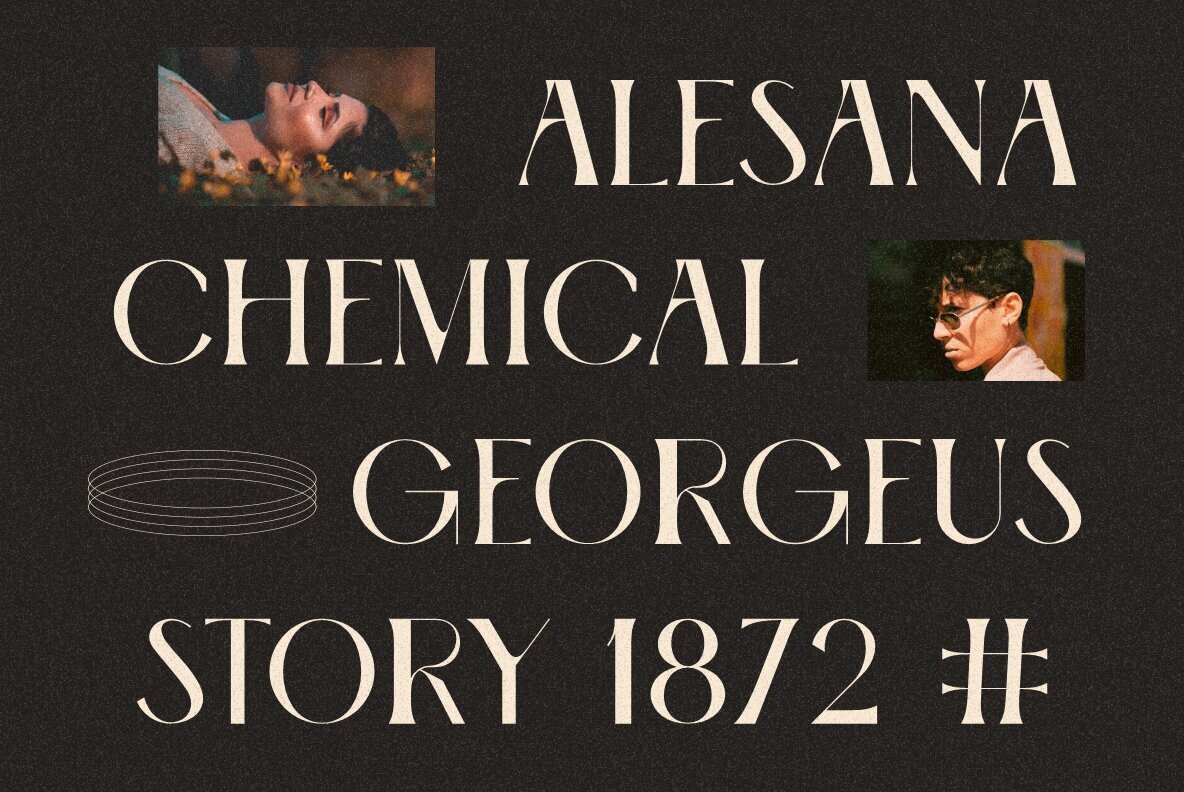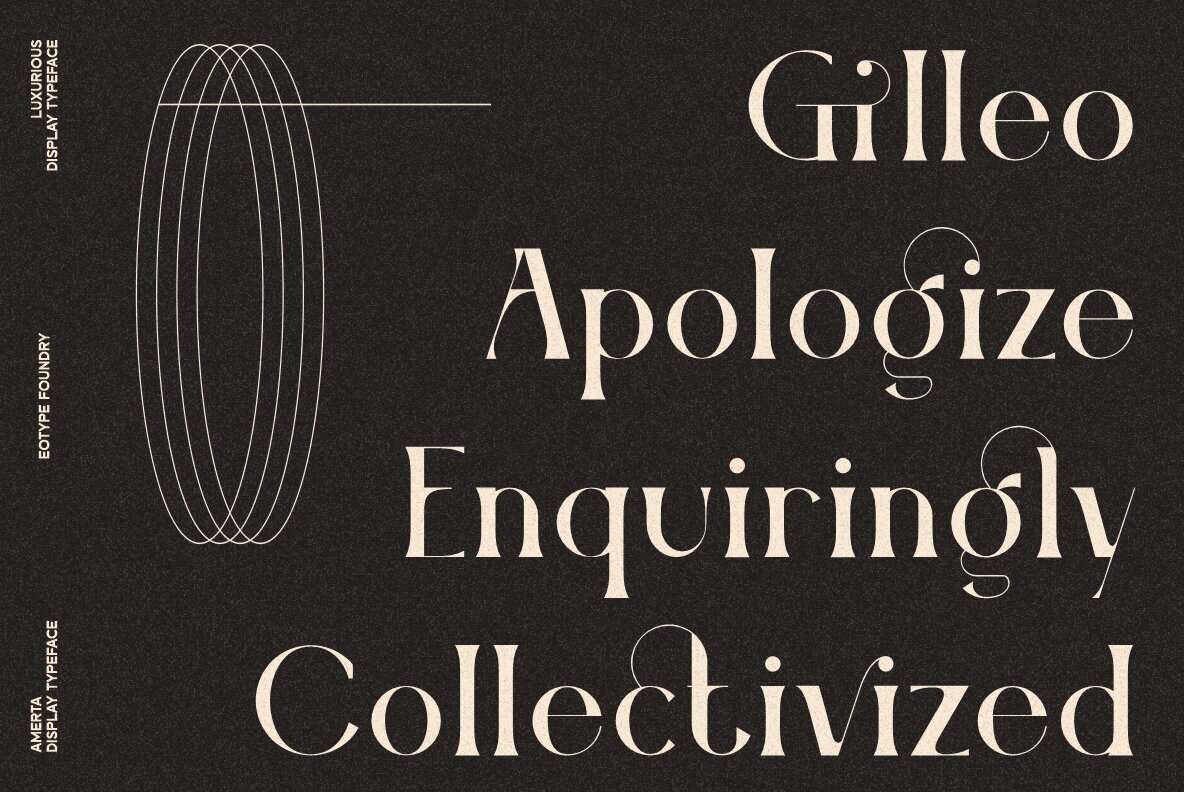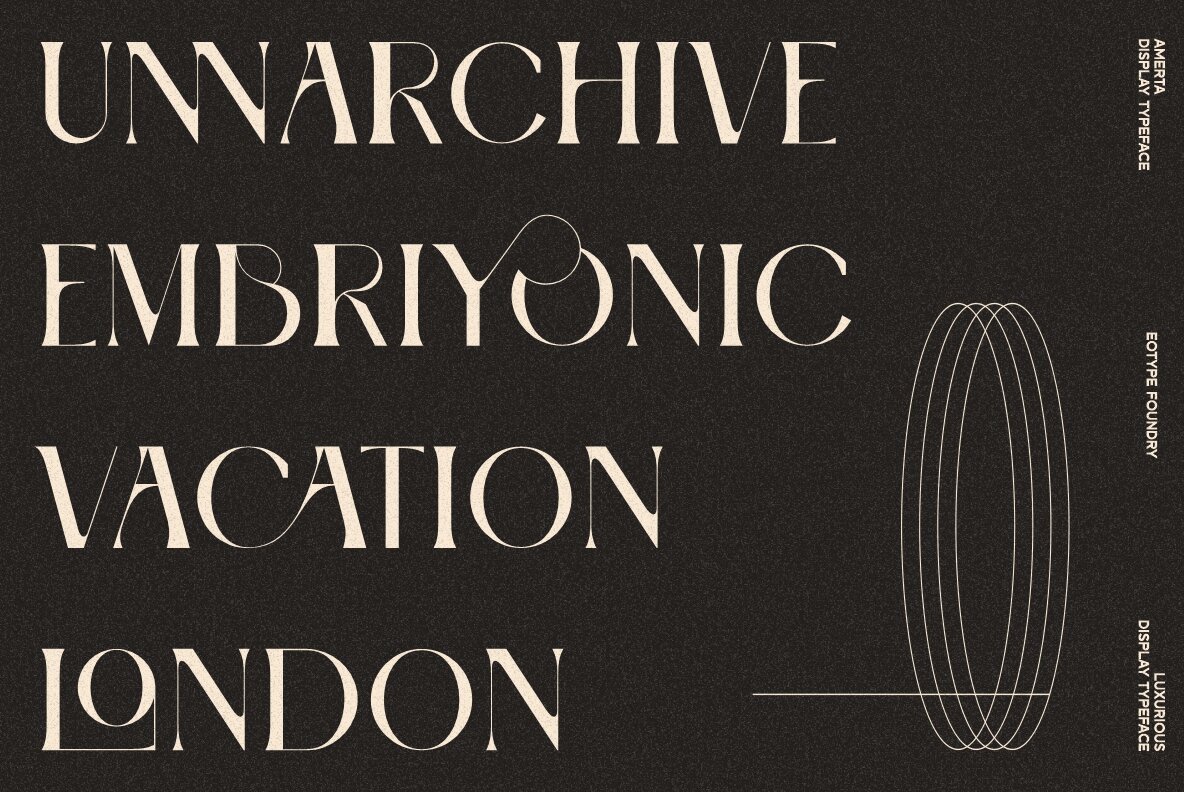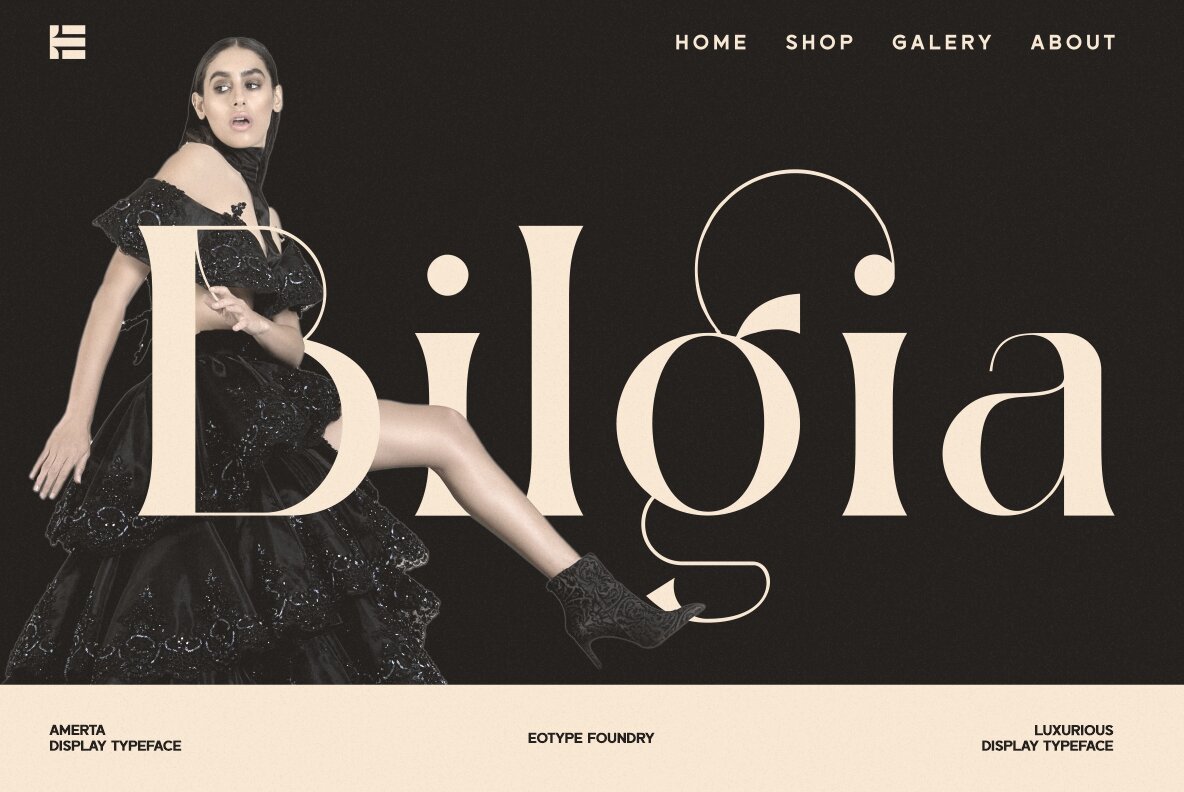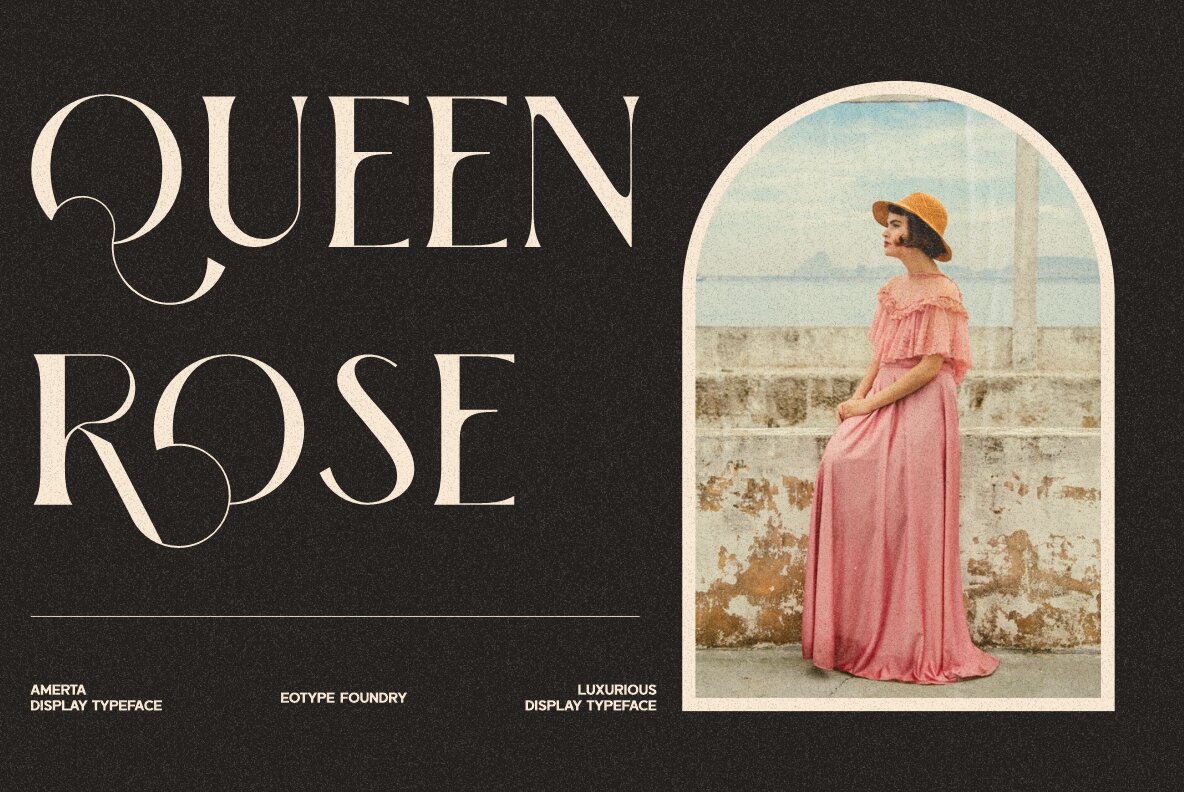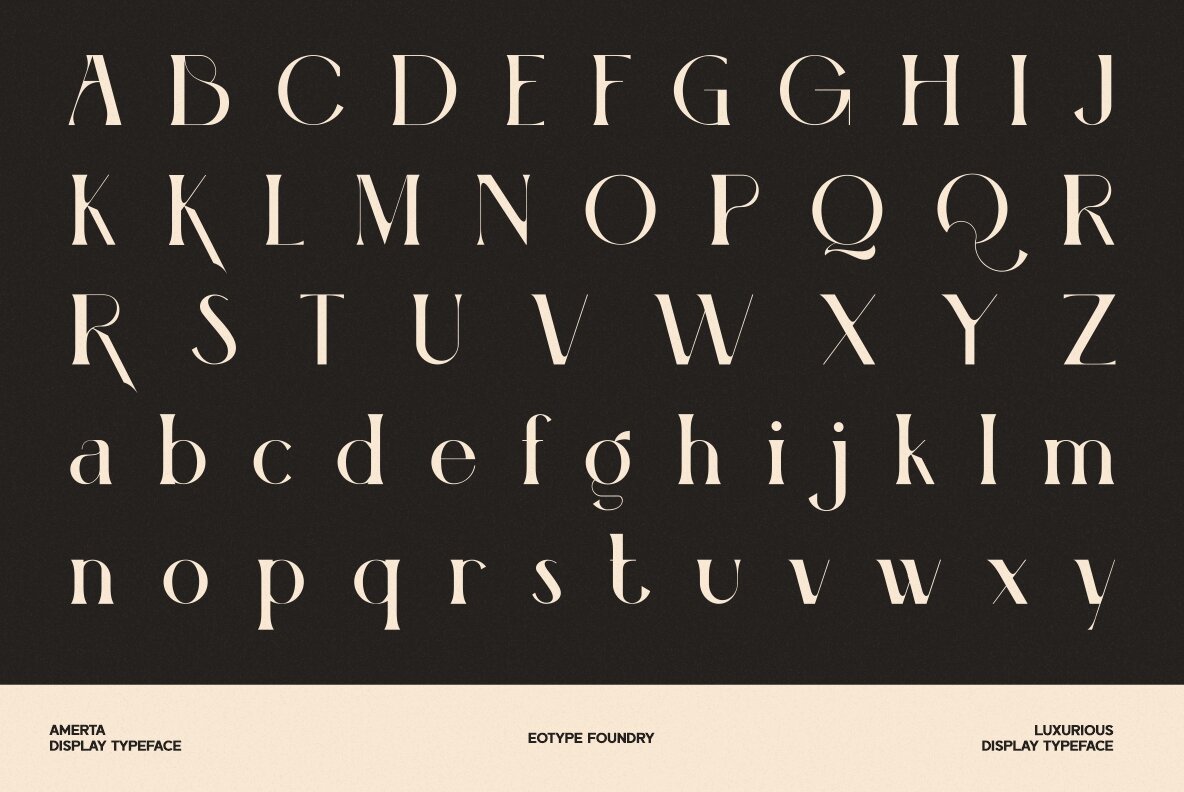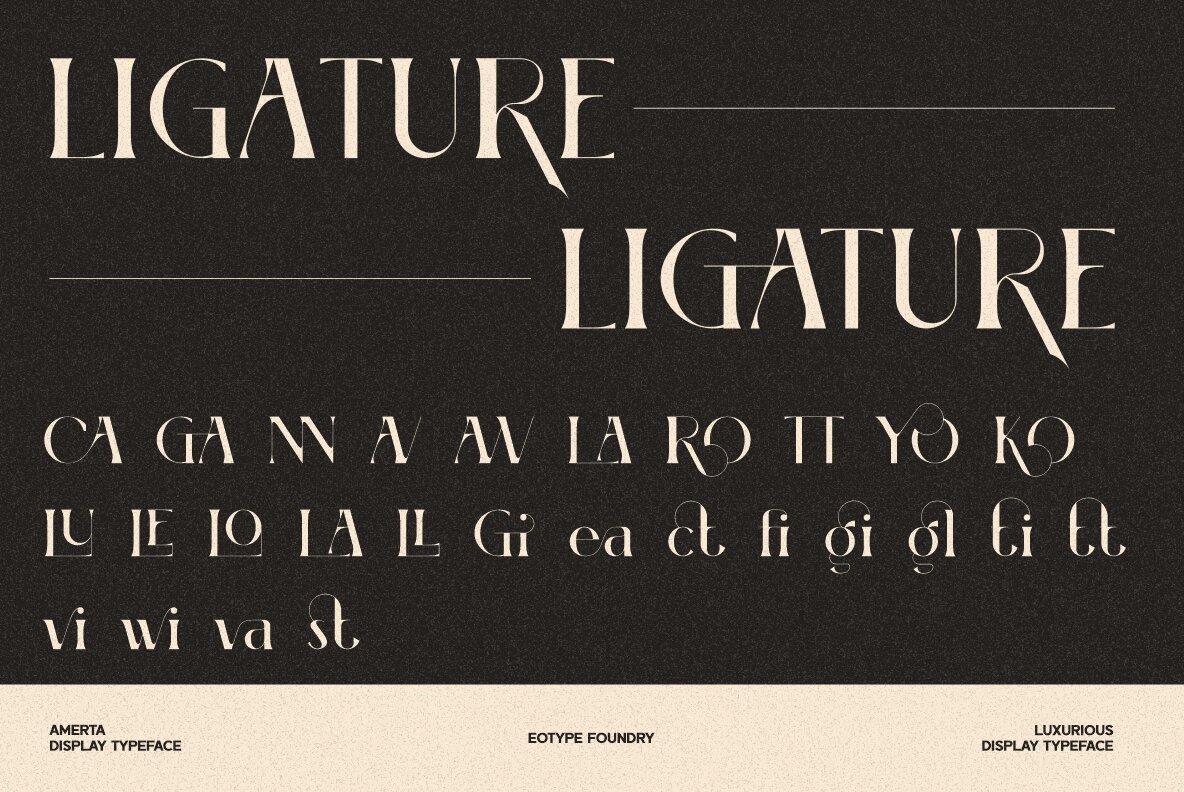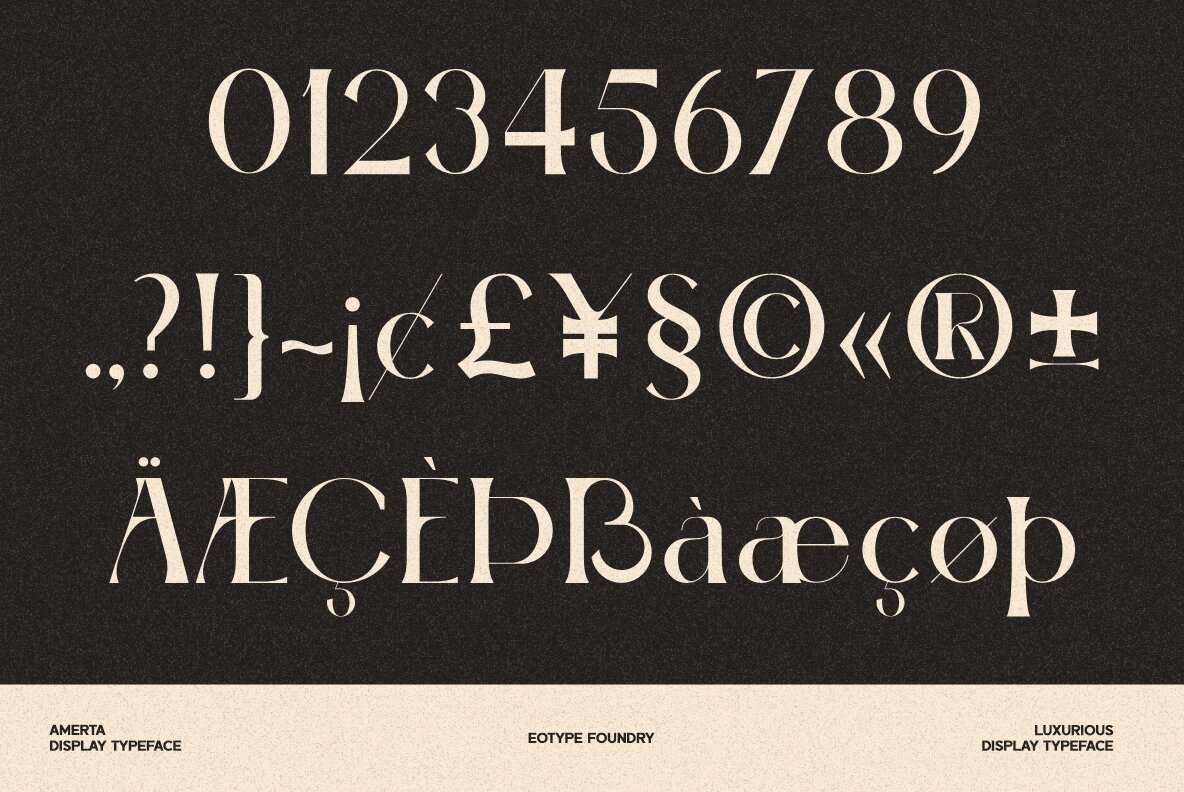
Amerta Font
AMERTA
Amerta offers a distinctive touch to typography, balancing modernity with tradition. This unique serif font distinguishes itself through its stylistic alternates and ligatures, enhancing any design palette. Its versatility makes it an excellent choice for logotypes, magazine layouts, or any graphical projects requiring an elegant yet bold aesthetic. Benefit from Amerta’s distinctive flair, whether crafting a unique logo or elevating your design portfolio with its bold yet refined charm.Amerta: Sophisticated Serif with Modern Flair